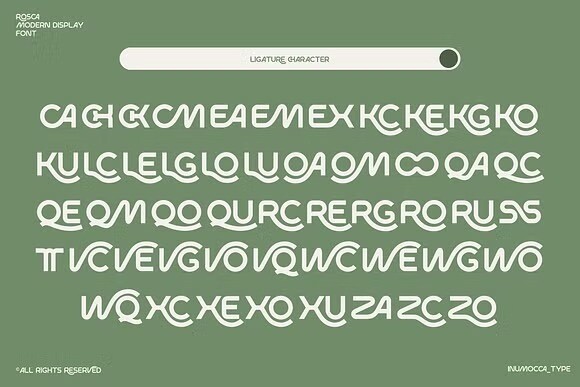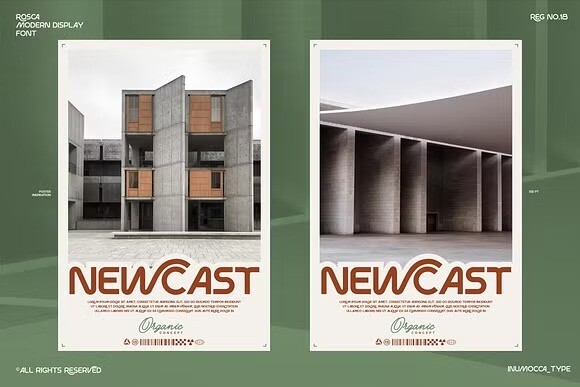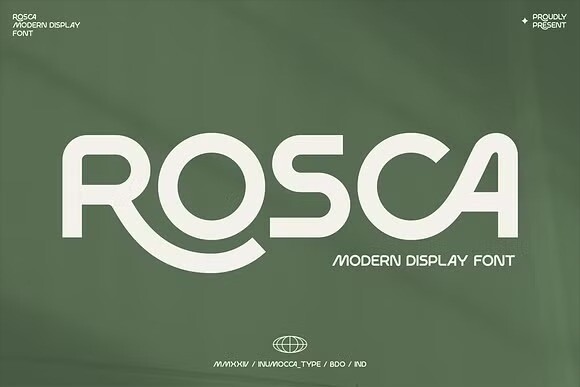
Rosca Font
Designer: inumocca_type
Rosca Font – Modern Display Font , futuristic and Classy Atmosphere Awesome More Beautiful Ligature and unique Stylistic Alternates. Really playful typeface to covering your Project, like Lettering, Website Interface, Magazine, Branding, Poster, wedding invitations, Quotes Lettering, Logos, and more your project design.